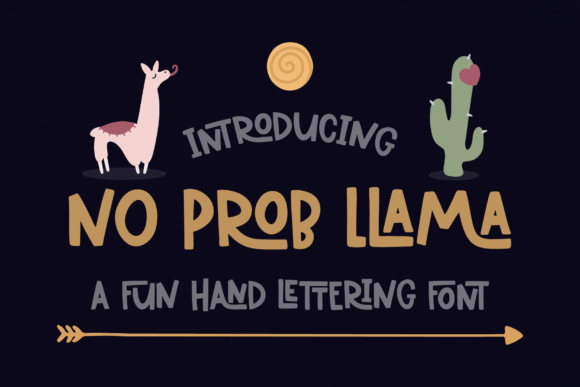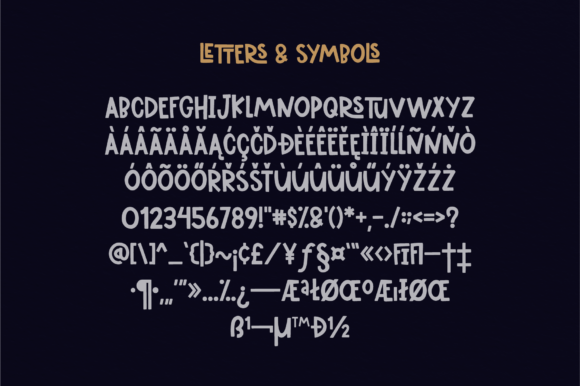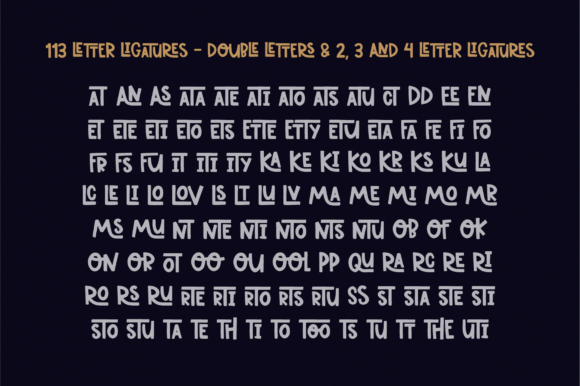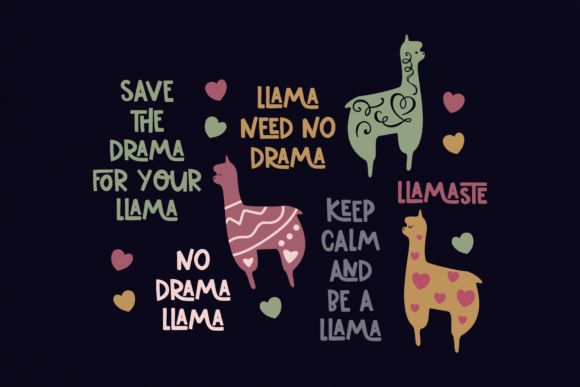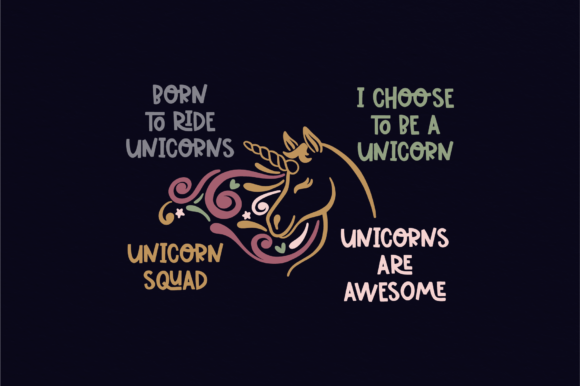
The No Prob Llama is a cute & fun hand lettering font with a lot of combination possibilities. Its the perfect font to add a playful feel to your designs!